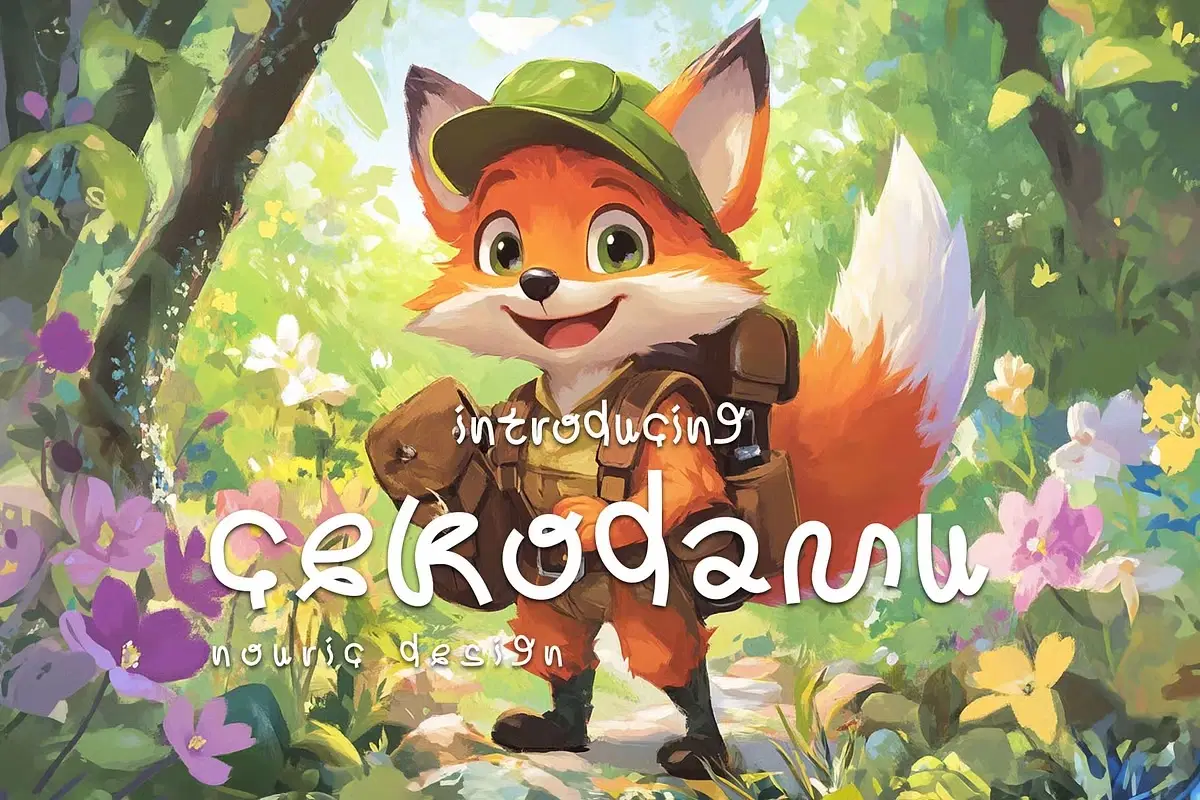
Introducing Cekodamu
A bold and playful display font that adds personality to any project! Perfect for posters, logos, social media, and more, this font brings an eye-catching and modern touch to your designs. With its unique style, Cekodamu will elevate your creative projects and make them stand out from the crowd. Ideal for creatives looking for something fresh and impactful—grab it now and make your designs pop!
Features:
Unique Character Designs: Every letter boasts its own playful style, ensuring your text stands out.
Versatile Use: Perfect for children's books, greeting cards, branding, and more.